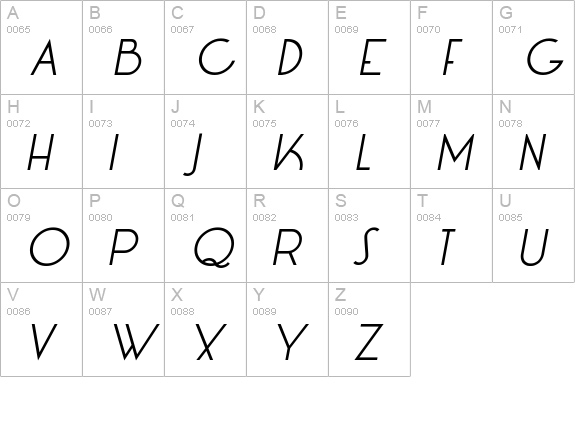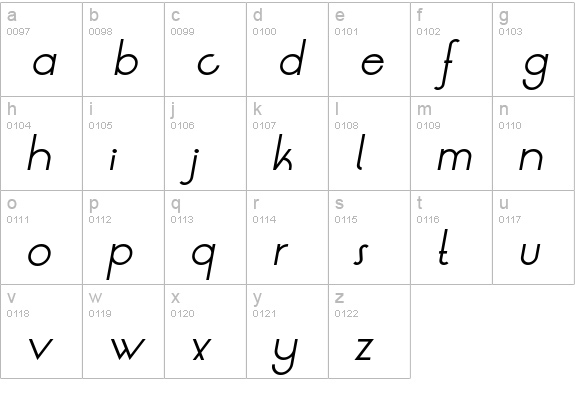
LT Oksana Italic Font Details
LT Oksana Italic is a distinctive, italic variant in the LT typeface family \xE2\x80\x94 well suited to design and typography projects.
Introducing LT Oksana Italic, a captivating font that exudes elegance and sophistication. This exquisite typeface is perfect for those seeking a touch of luxury and grace in their designs. LT Oksana Italic combines the timeless beauty of calligraphy with a modern twist, resulting in a truly unique and mesmerizing font. With its delicate strokes and graceful curves, LT Oksana Italic adds a touch of refinement to any project. Whether used in branding, invitations, or editorial design, this font effortlessly captivates the reader and leaves a lasting impression. Its versatility allows it to be used in a variety of contexts, from formal events to contemporary designs. One of the best features of LT Oksana Italic is that it is freely available to download at FontsMarket.com. This means that designers and creatives can easily access this stunning font without any cost. With its high-quality design and extensive character set, LT Oksana Italic offers endless possibilities for creating visually stunning and engaging designs. Embrace the beauty and elegance of LT Oksana Italic and let its flowing lines and graceful curves elevate your designs to new heights. Download this captivating font for free at FontsMarket.com and unlock a world of endless creativity.